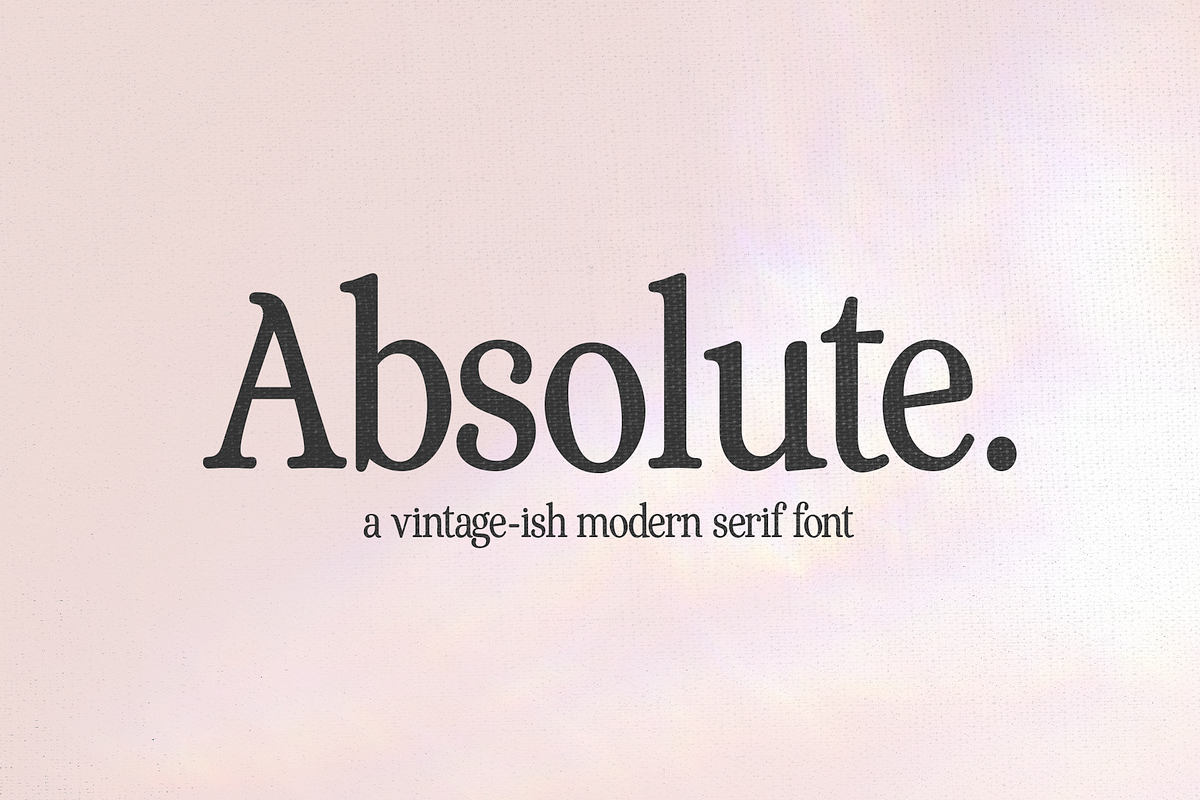
Absolute Modern Serif Font Free Download is a bold and sophisticated typeface that combines classic serif elements with a contemporary edge. With its sharp lines, refined curves, and modern aesthetic, this font is perfect for branding, editorial design, logos, websites, and packaging that needs a sleek and professional look.
Whether you’re creating a high-end brand identity, designing an elegant publication, or crafting a stylish website, Absolute Modern Serif Font brings clarity, sophistication, and a modern sensibility to your typography. It’s the ideal font for designers seeking a polished, contemporary serif.